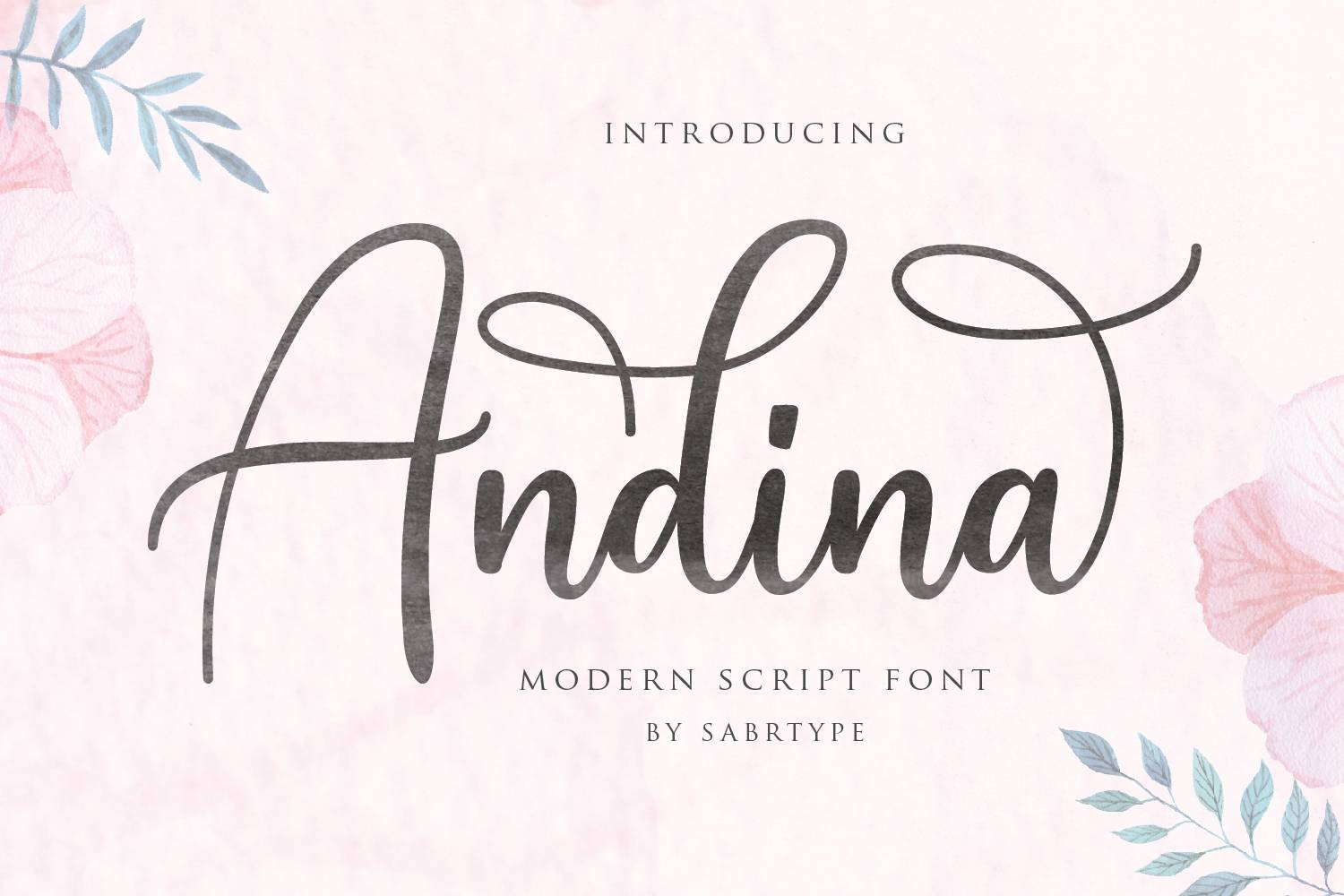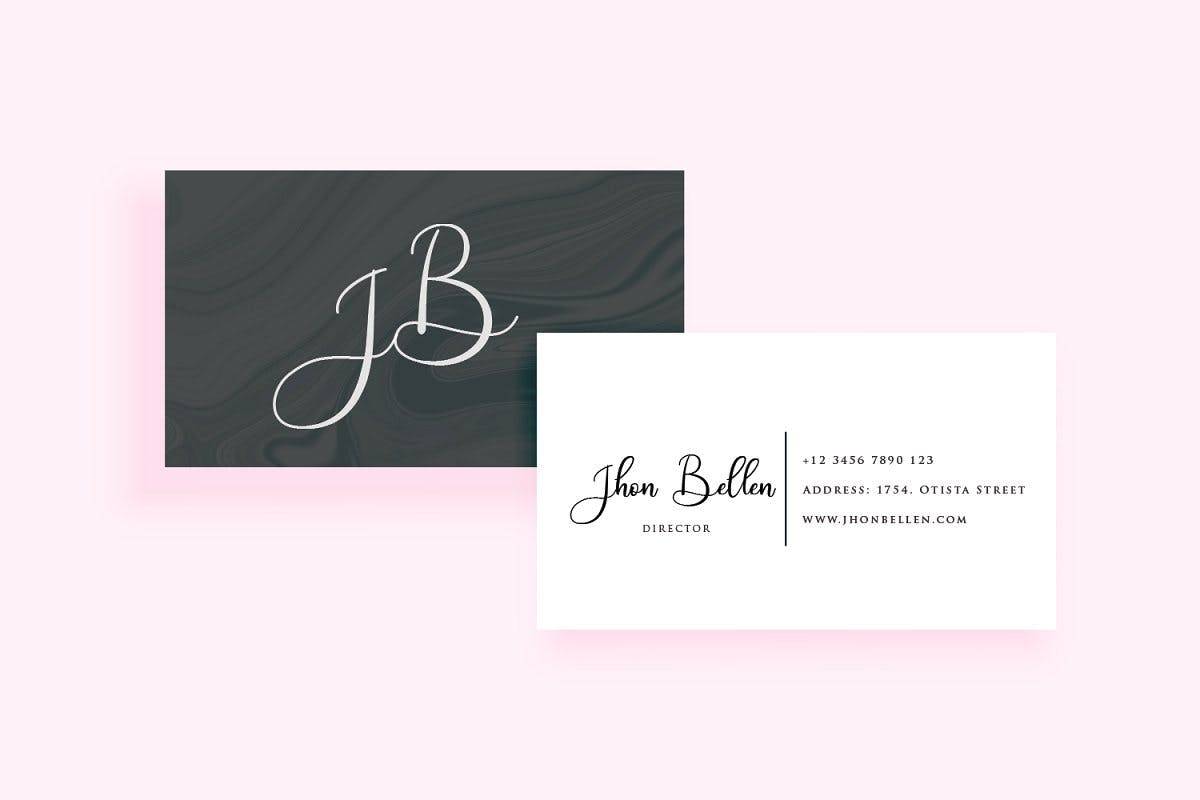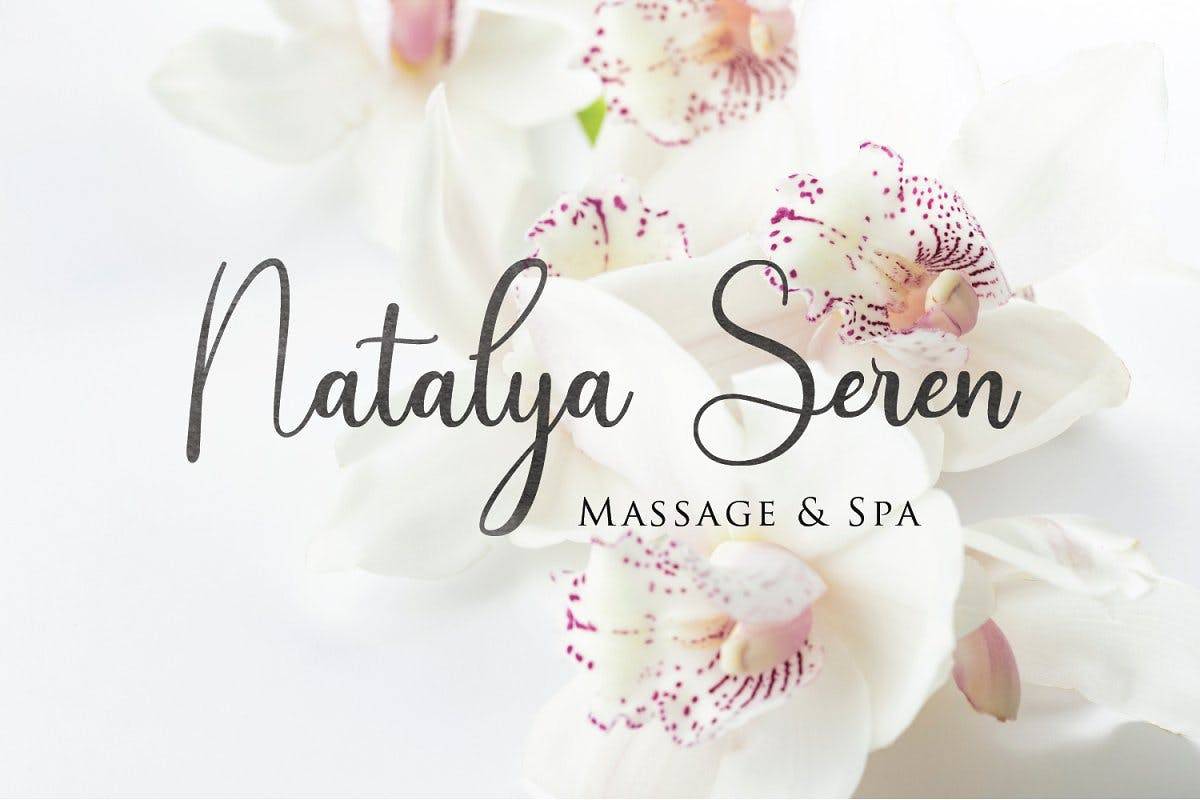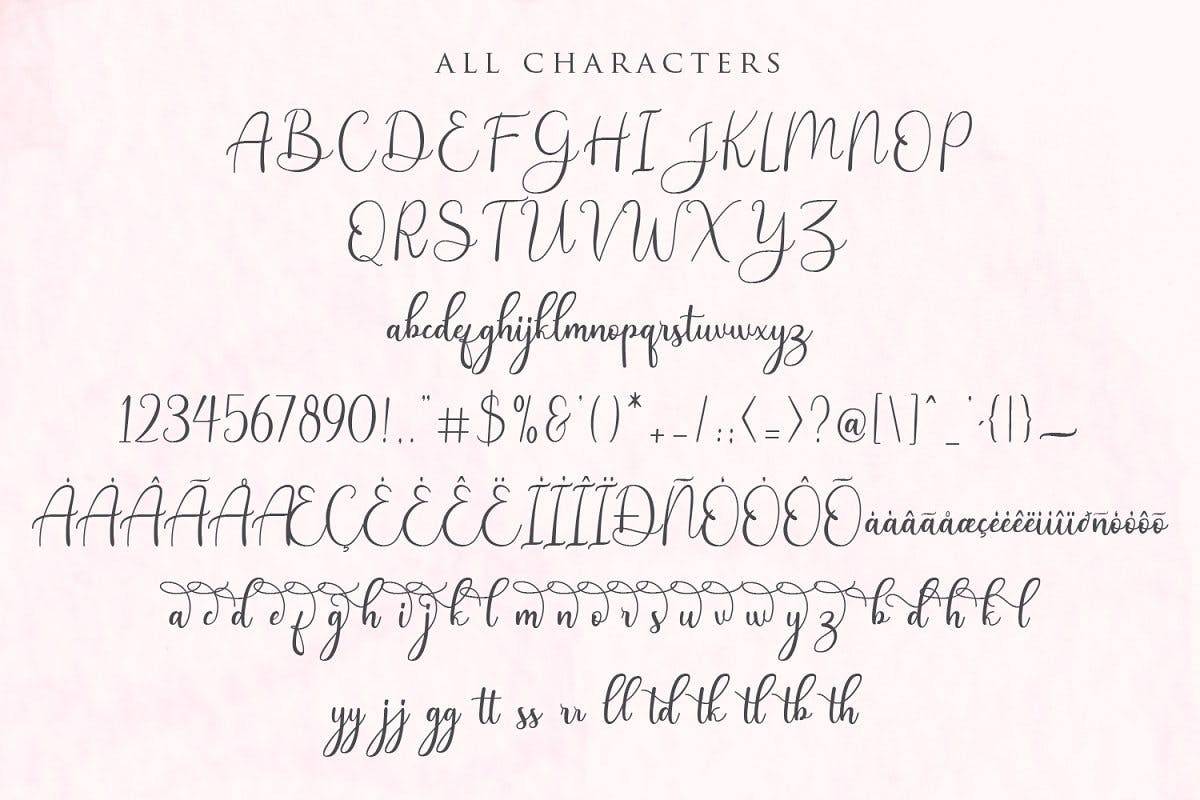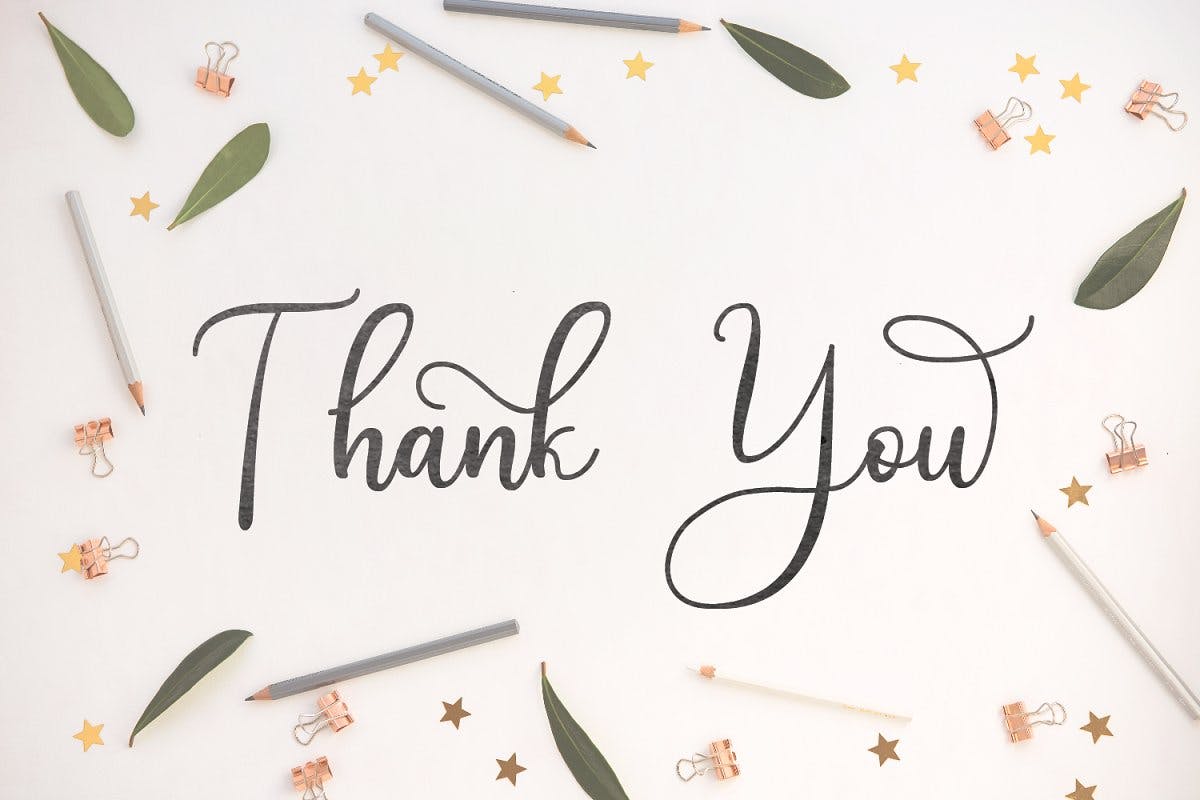
Demo Andina Script is an elegant, delicate script font featuring thin, fluid strokes and graceful letterforms that evoke a handwritten charm. Its refined, airy style with distinctive loops and swashes makes it ideal for feminine, romantic, or sophisticated design projects such as invitations, branding, and headlines where a personal, artistic touch is desired.
Demo Andina Script Font
About Demo Andina Script Font
| Font family | Demo Andina Script Font |
| Release date | 2018-09-22 |
| Designer | Sabertype Studio |